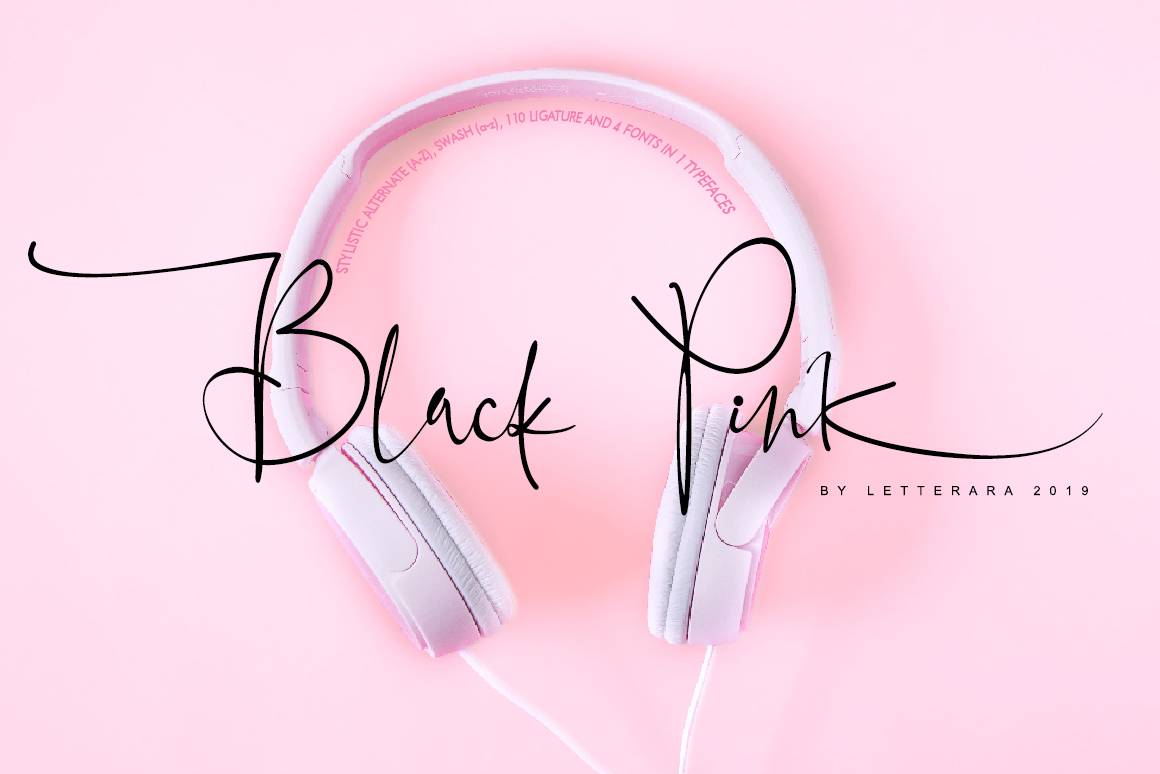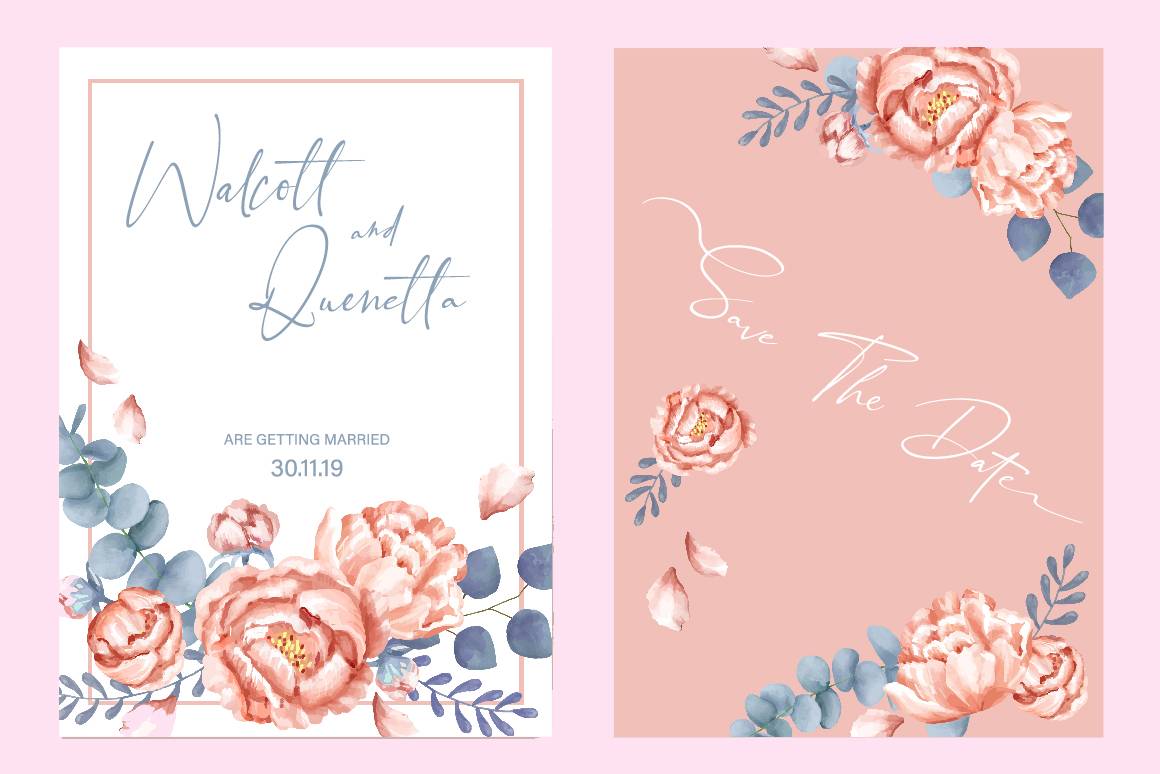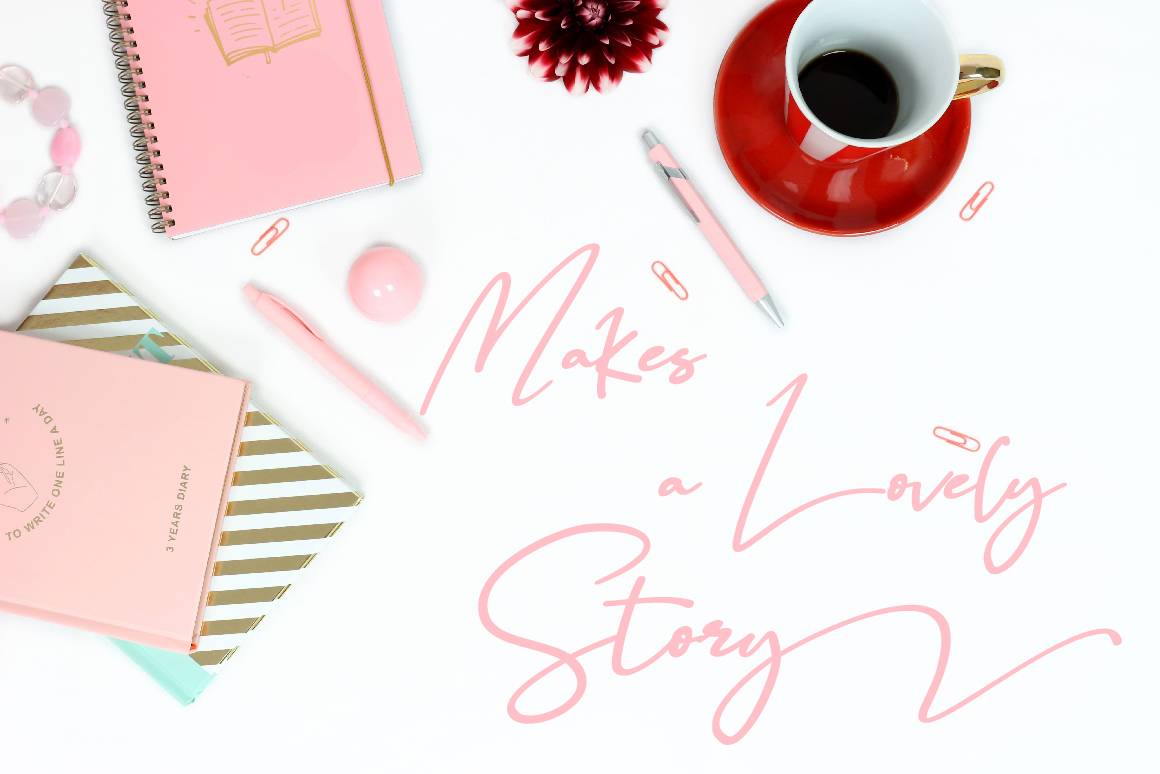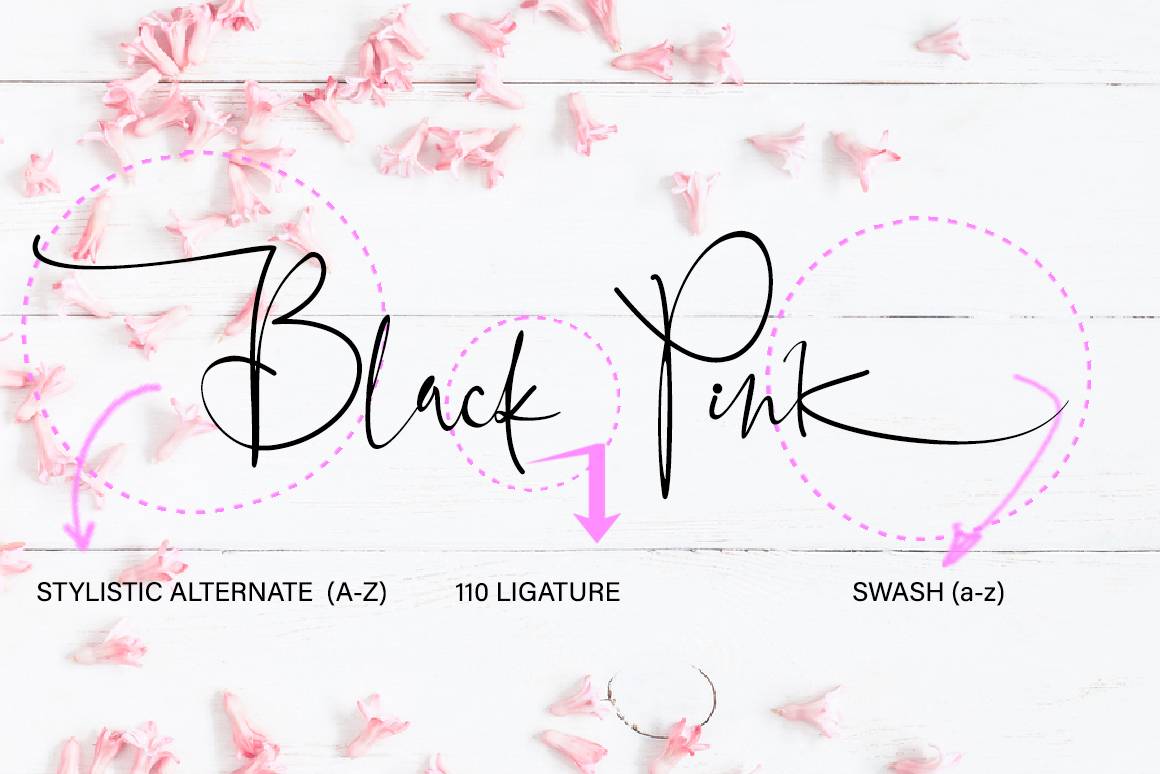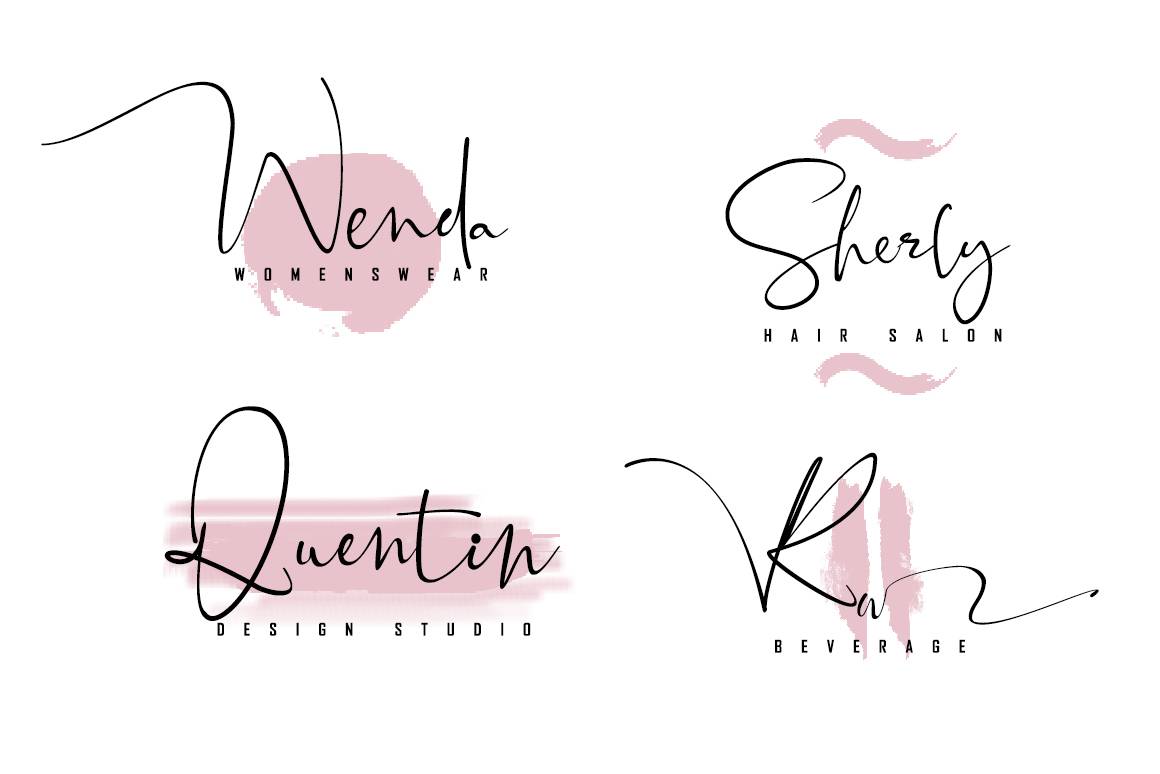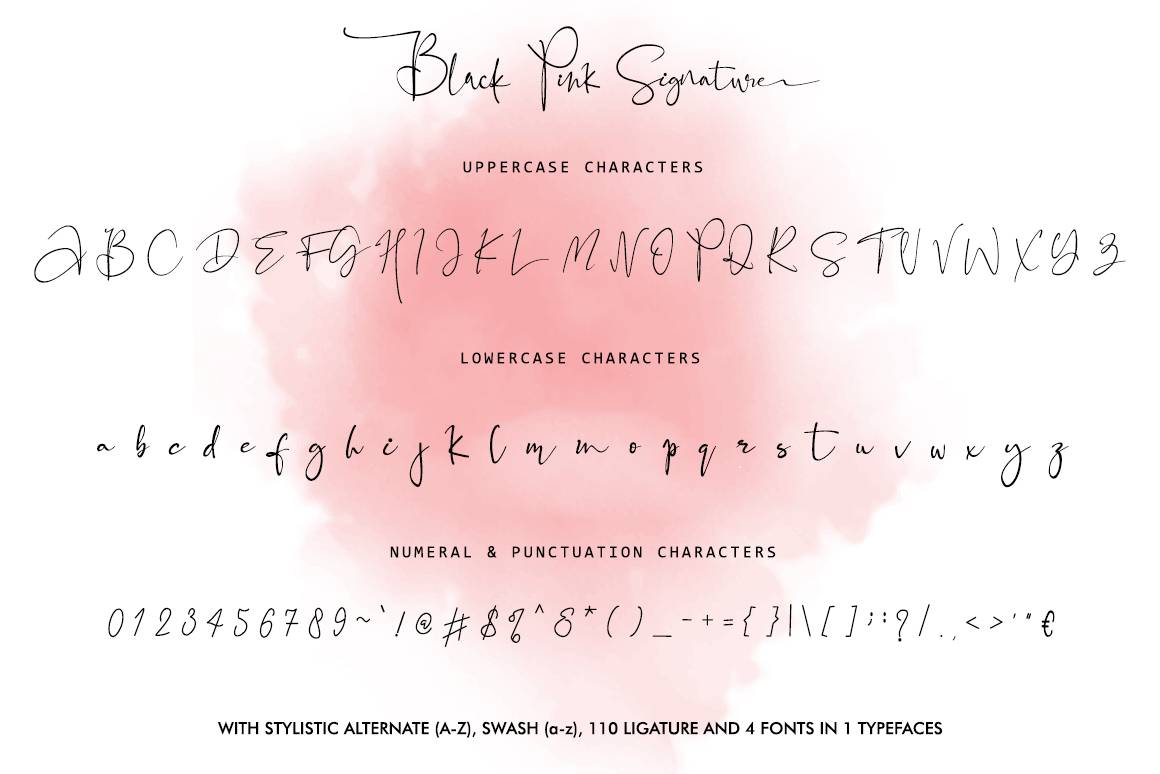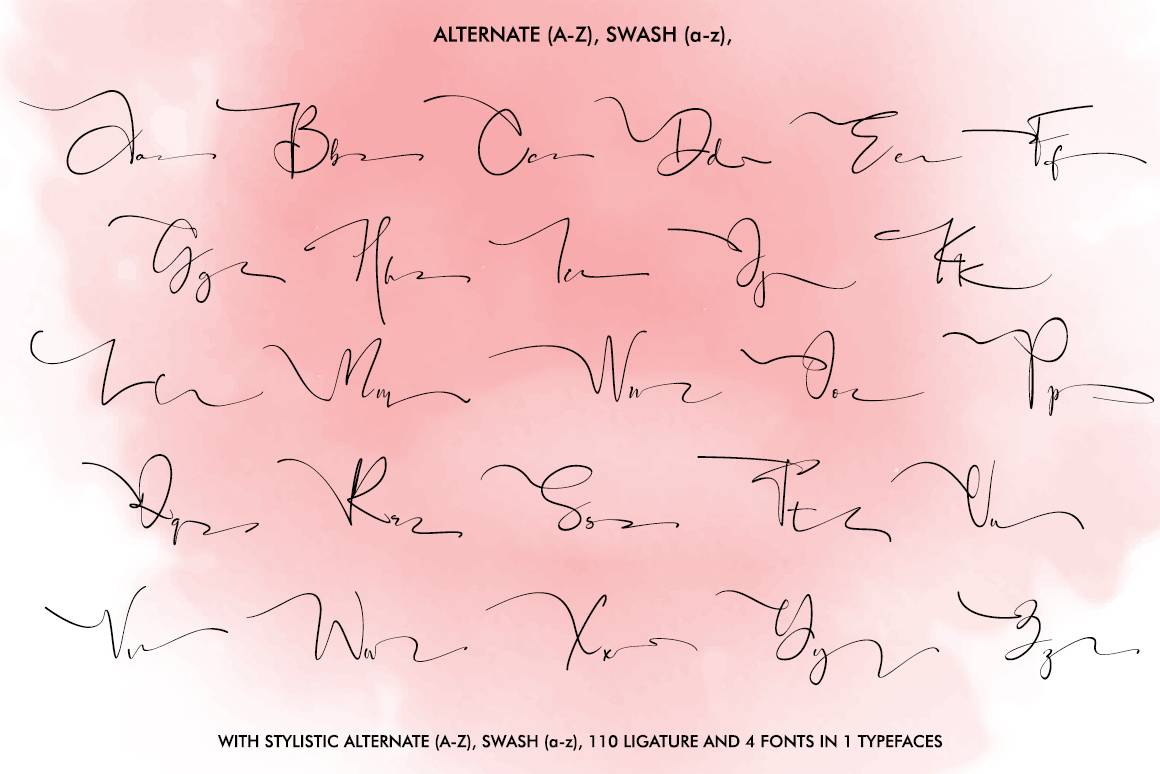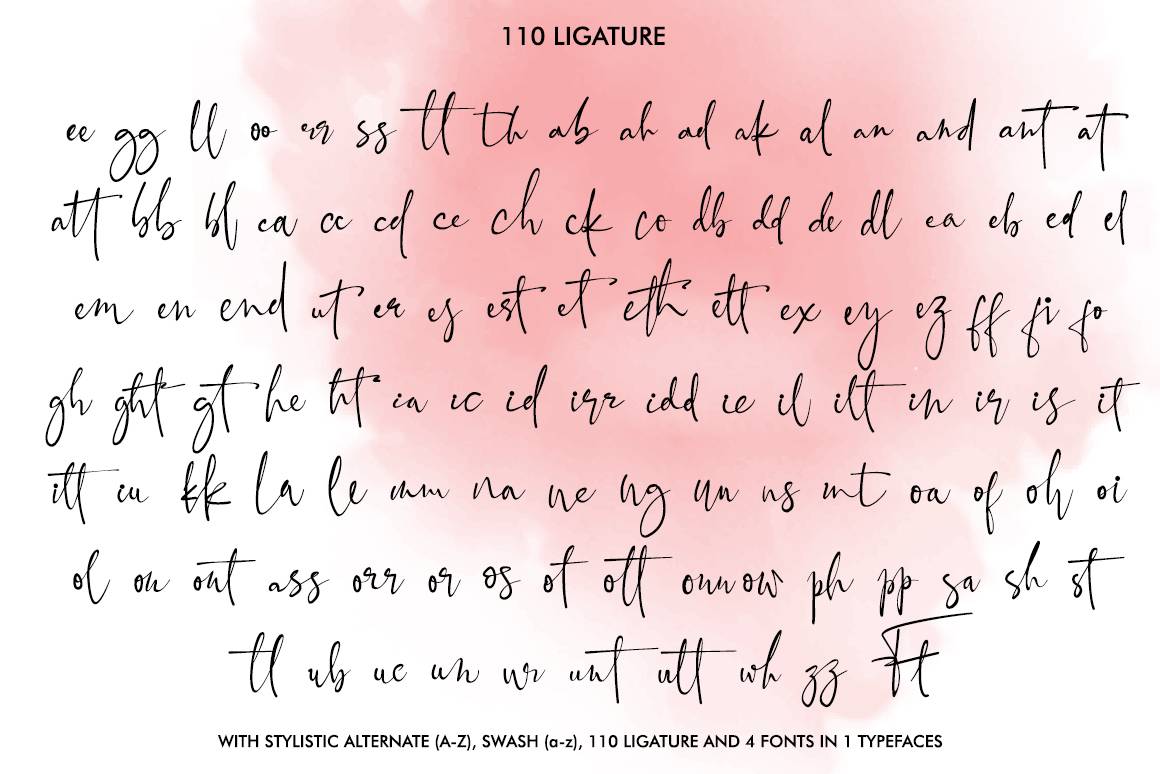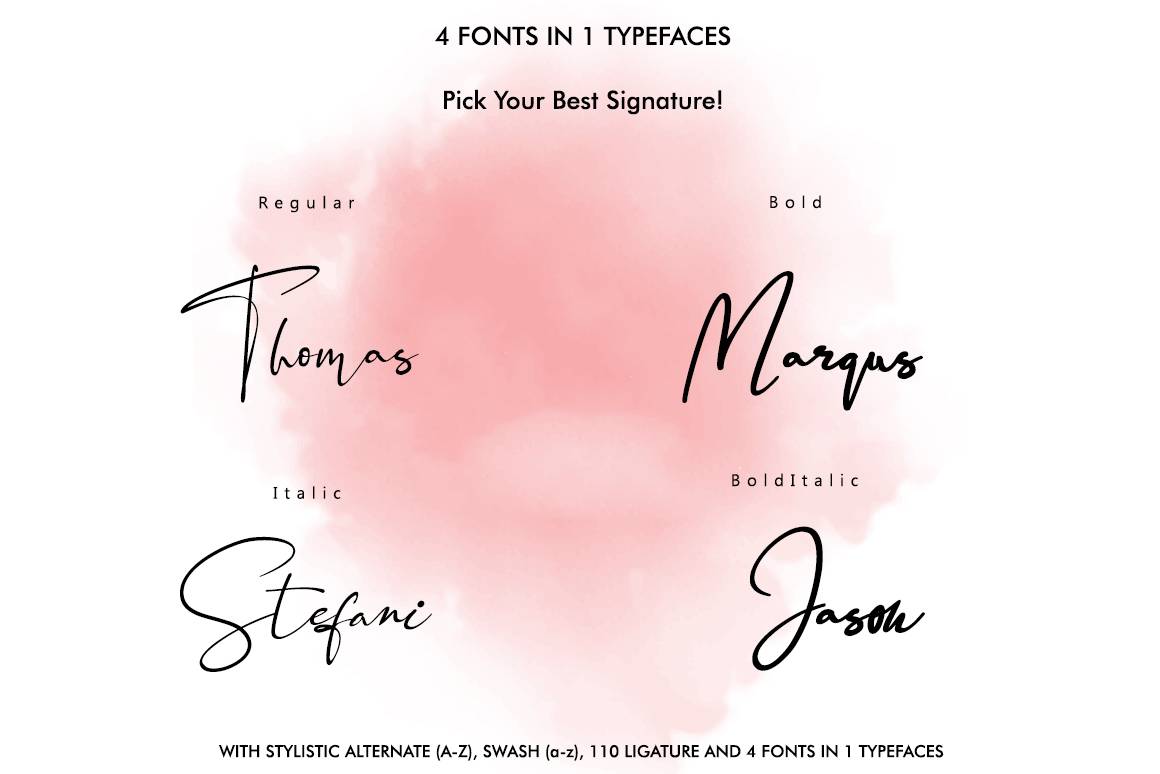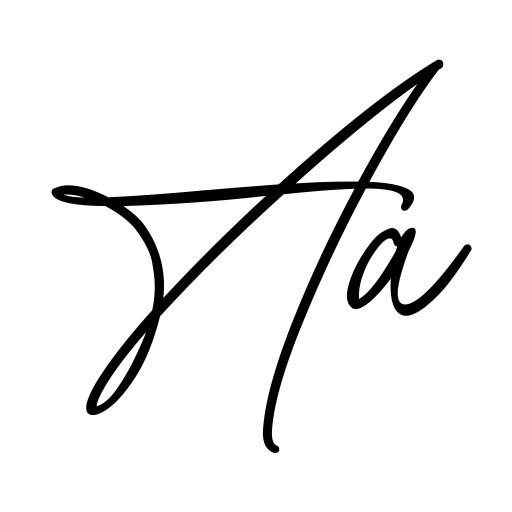
Black Pink Signature Script is a delicate, hand-drawn script font with thin, elegant strokes that mimic natural handwriting. Its whimsical and airy style lends a personal, sophisticated feel, making it perfect for fashion branding, invitations, and modern lifestyle designs where a touch of individuality and refinement is desired.
Black Pink Signature Script Font
About Black Pink Signature Script Font
| Font family | Black Pink Signature Script Font |
| Category | Script |
| Designer | Letterara 2019 |